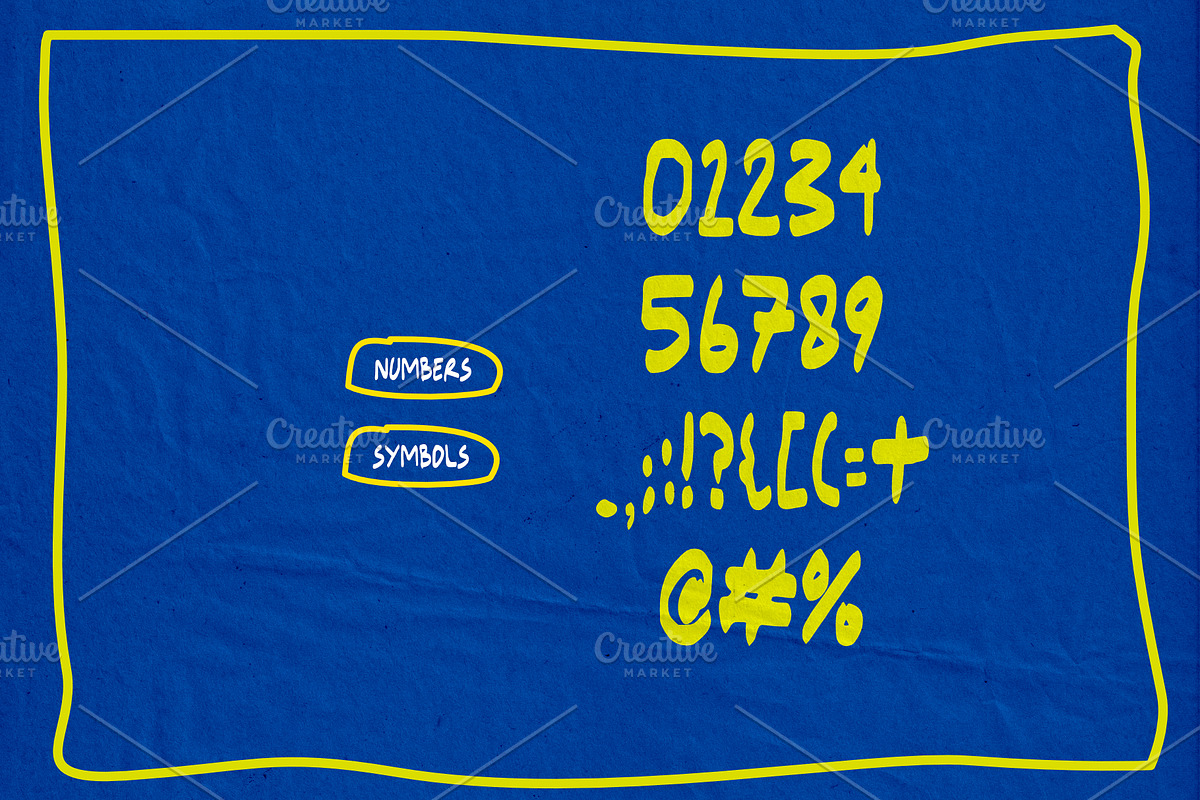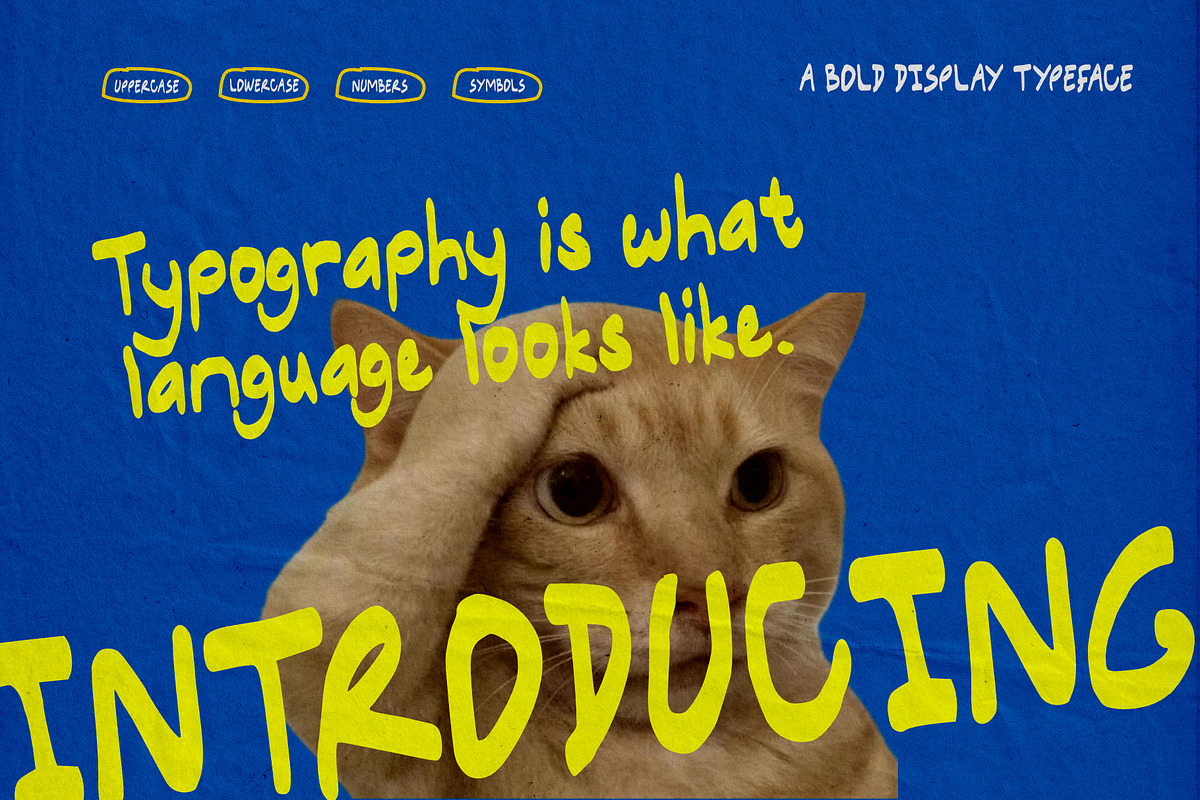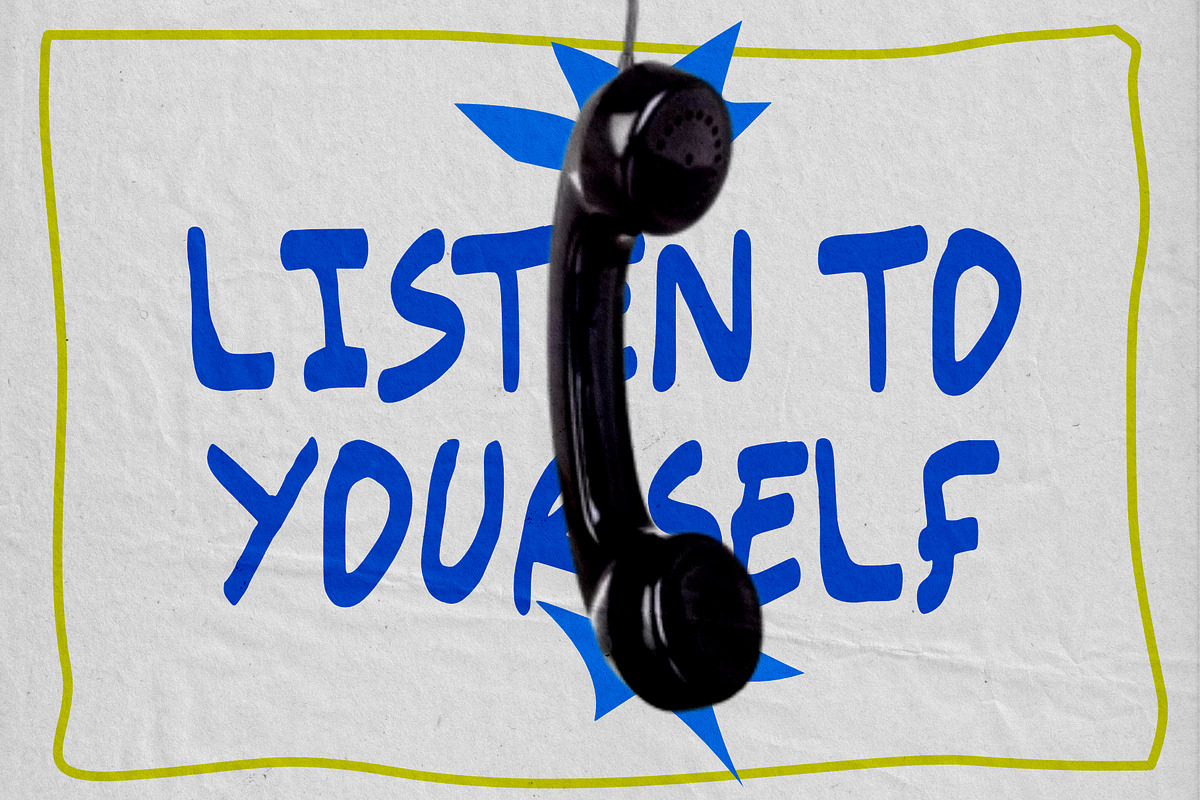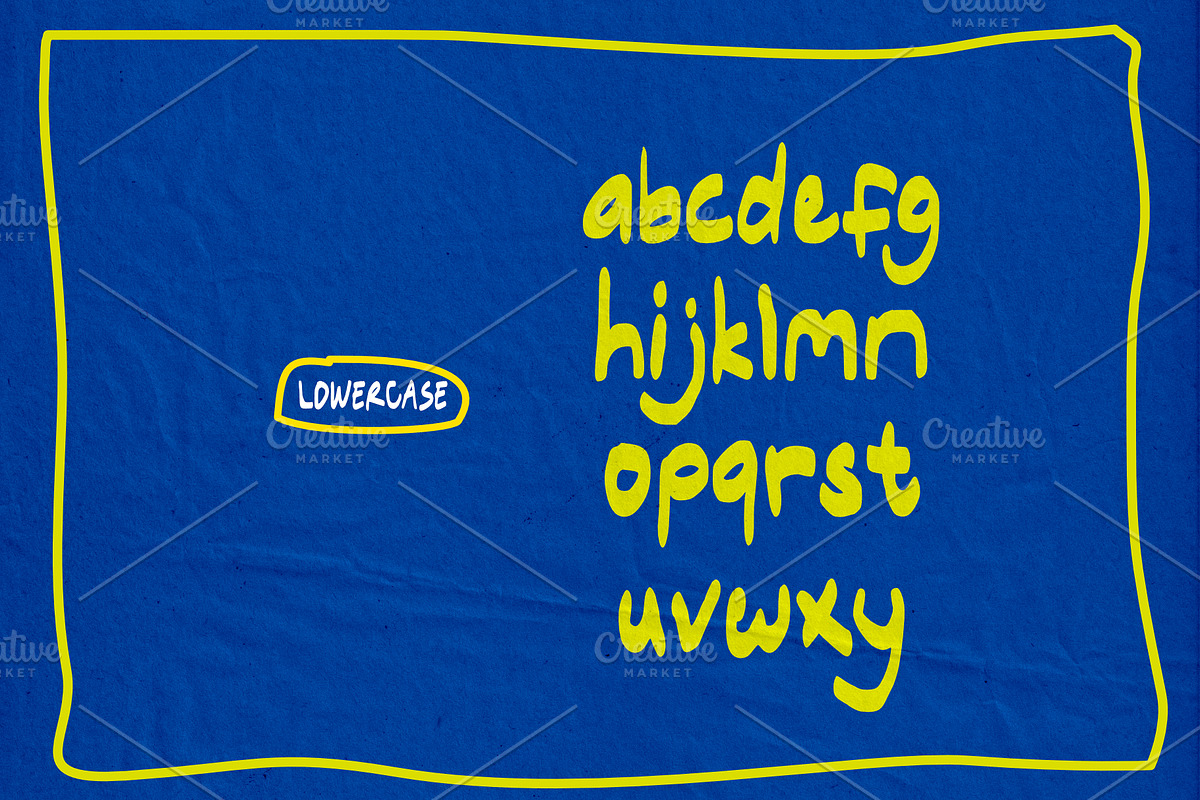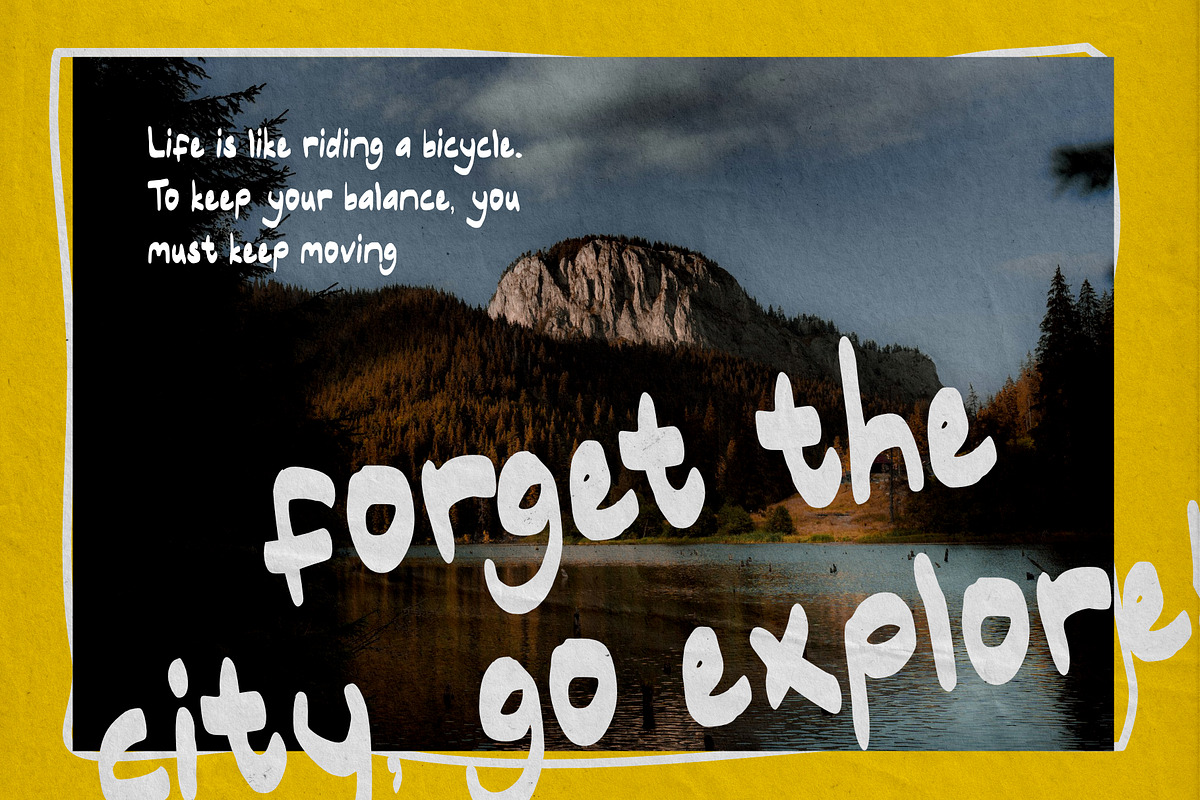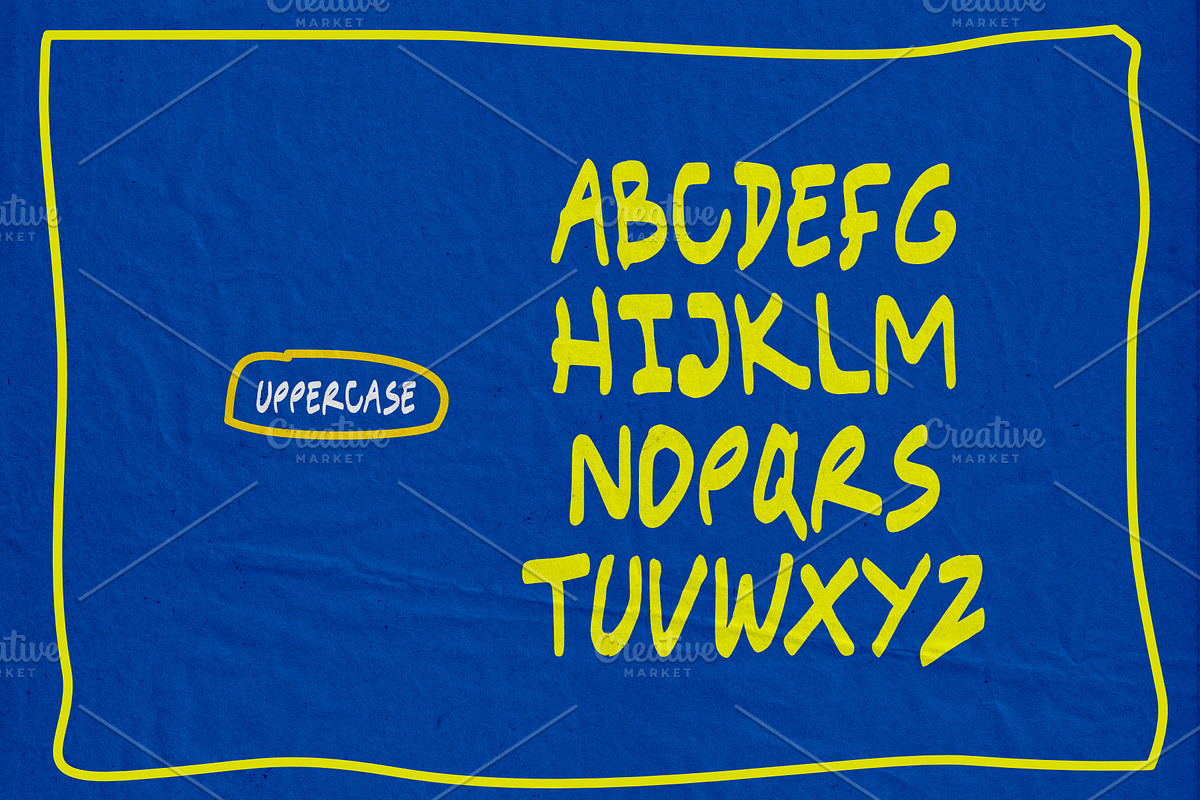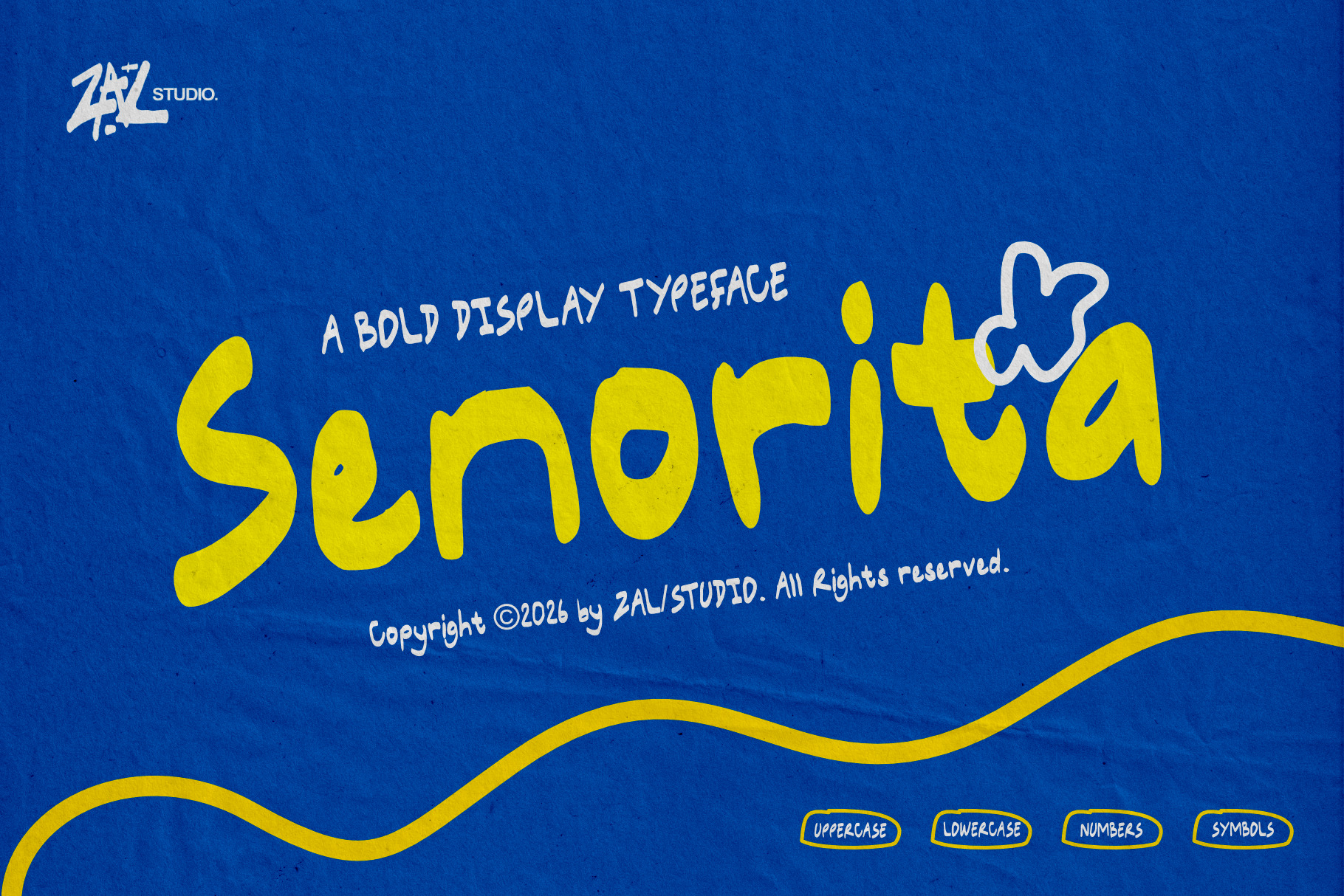
Senorita Bold Display Typeface
Senorita — Bold Display Typeface
Senorita is a bold display typeface designed to make a strong visual statement. With its powerful letterforms and distinctive character, Americano is perfect for designs that need a confident, eye-catching, and expressive typographic style.
Built for headlines and attention-grabbing compositions, this bold display font works beautifully across branding, posters, packaging, editorial design, social media graphics, apparel, advertising, and other creative projects.
Logo & branding design
Posters and flyers
Headlines & titles
Packaging design
Apparel & merchandise
Editorial layouts
Advertising campaigns
Album & book covers
Typography-focused artwork
Badges, labels & signage
Creative brand identities
Senorita is designed as a versatile display typeface for designers who want bold typography with a distinctive personality. Its strong visual presence makes it especially effective at large sizes, where the character of the typeface can truly stand out.
Whether you're creating a modern brand identity, a striking poster, a fashion graphic, a packaging concept, or social media artwork, Americano brings an impactful typographic foundation to your design.